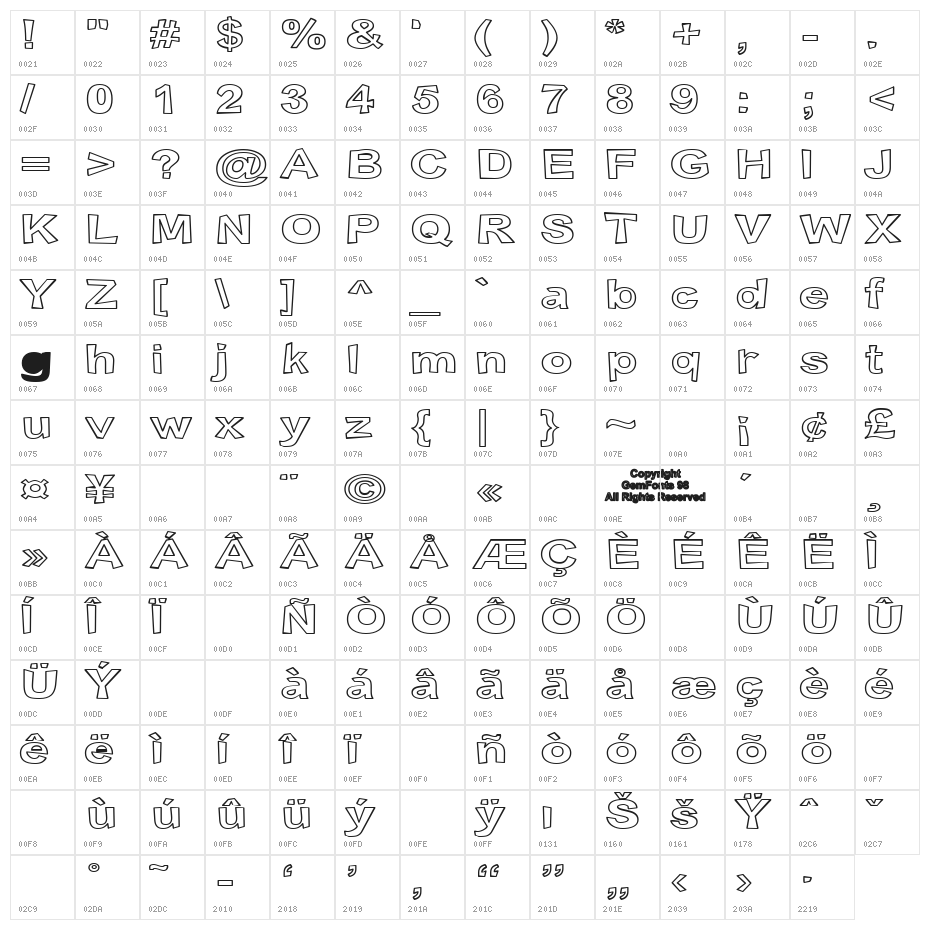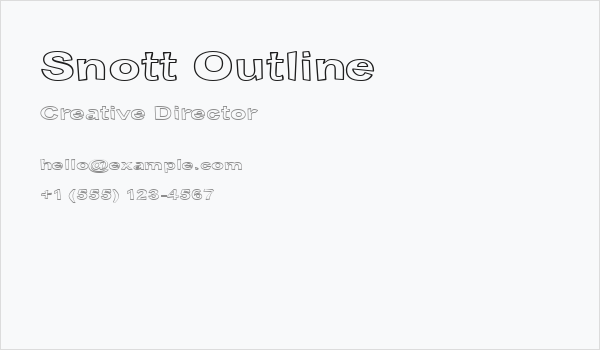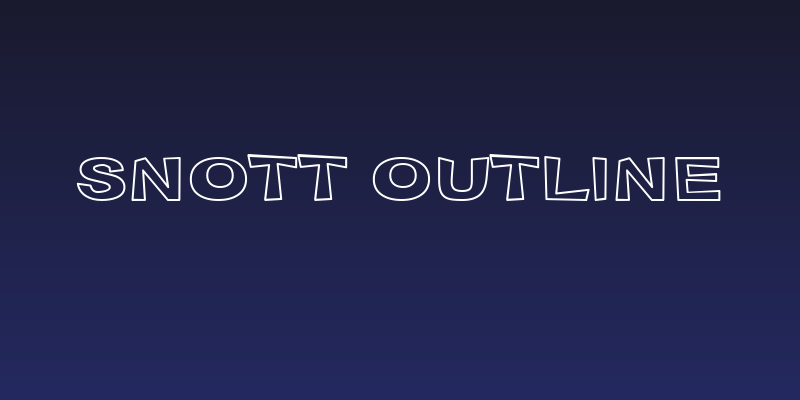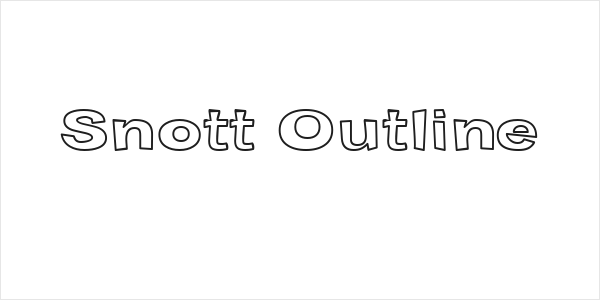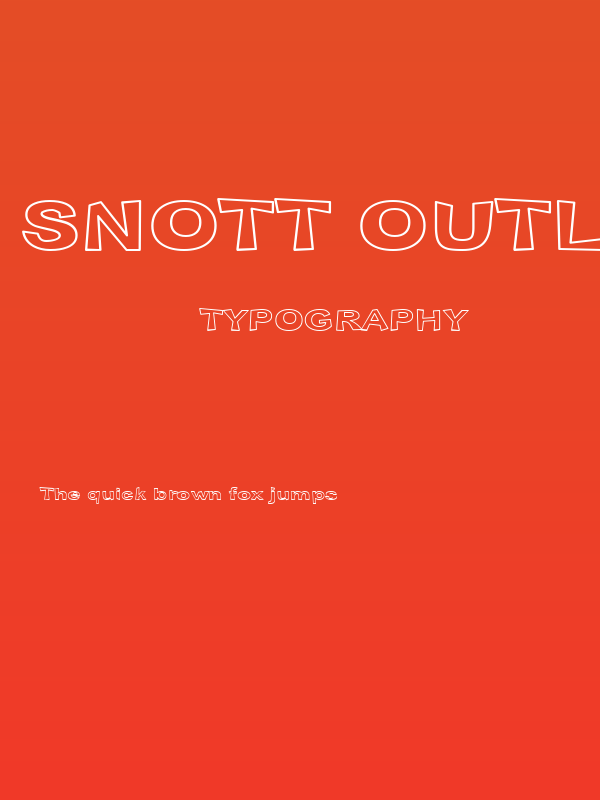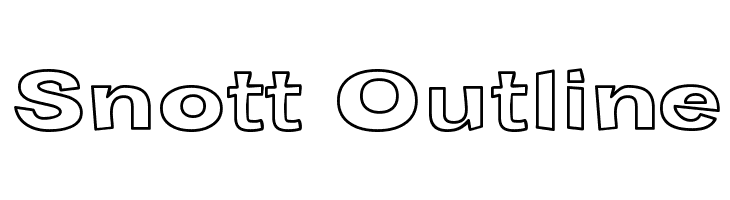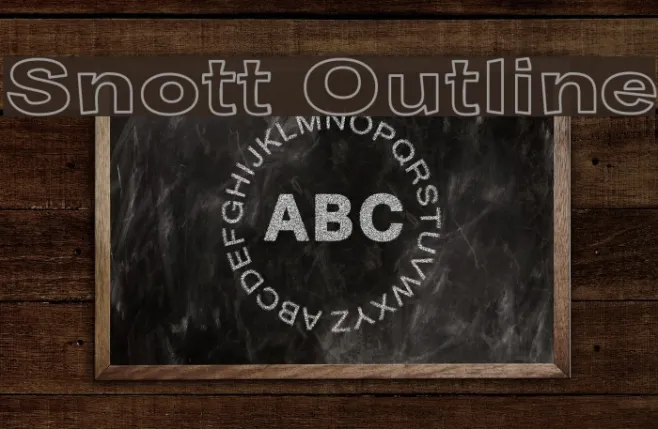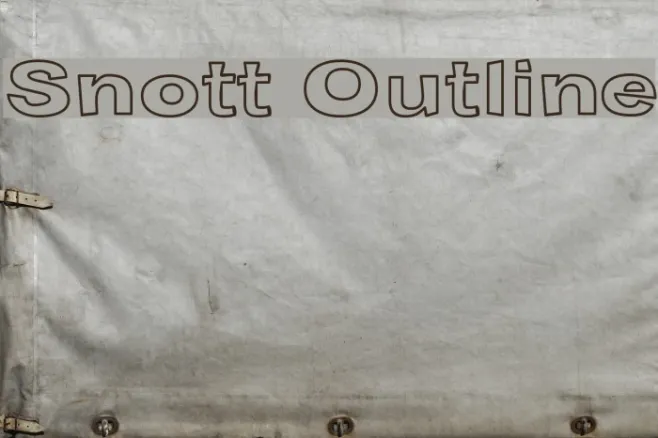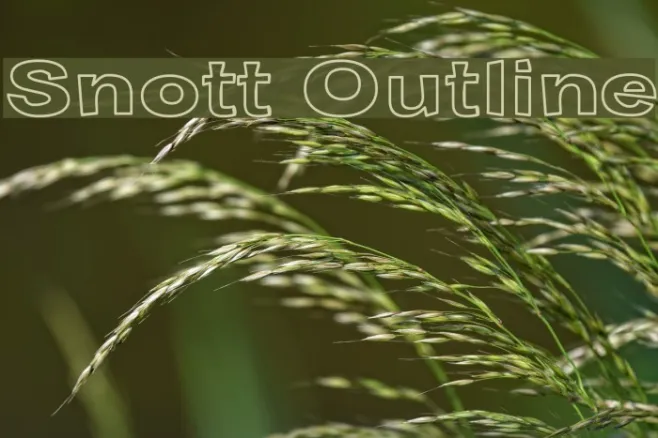
Snott Outline Font
Snott Outline Description
This font features a bold, outlined style that gives it a striking and modern appearance. The uppercase and lowercase letters are consistent in their outline thickness, creating a cohesive look across the alphabet. The numerals and special characters maintain this outlined aesthetic, ensuring uniformity throughout. The font's design is clean and geometric, with a slight emphasis on angularity, making it suitable for attention-grabbing headlines or titles. Its open and airy structure allows for easy readability, even at smaller sizes, while the outlined nature adds a layer of visual interest.
| Proposed Projects | Ideal for posters, logos, branding materials, and any project requiring a modern and eye-catching typeface. |